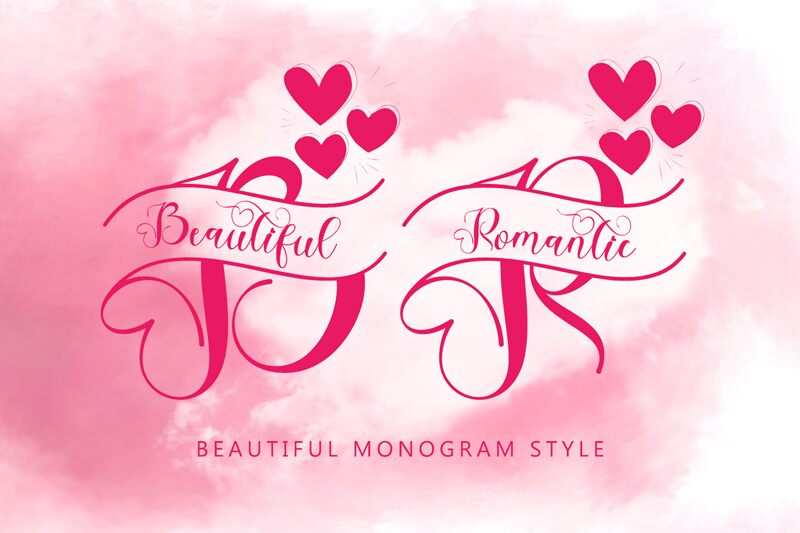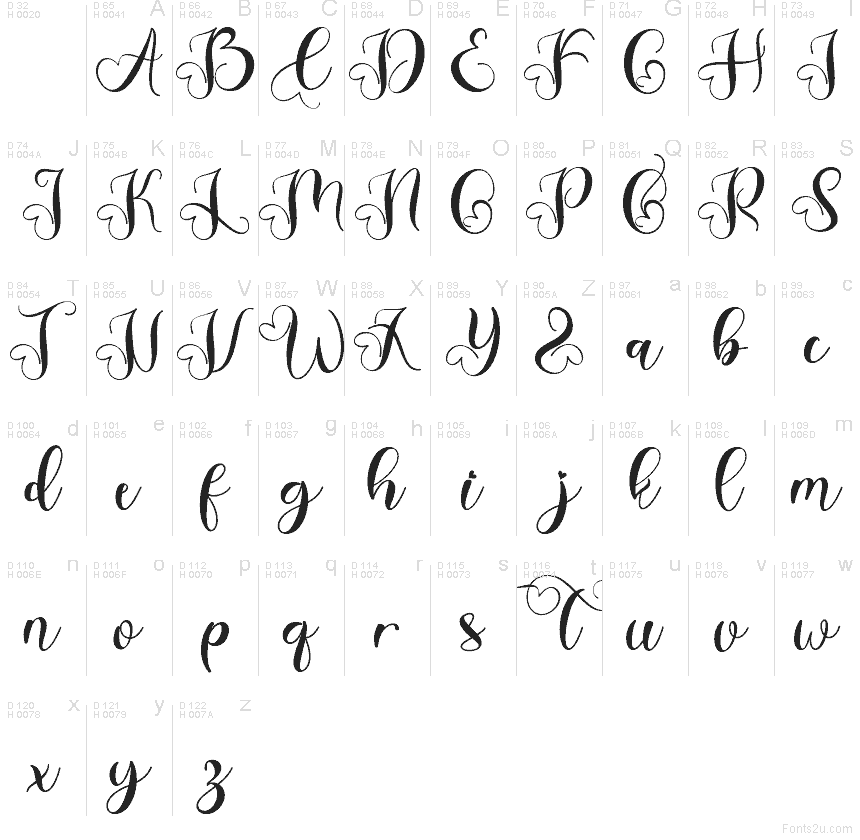
Beautiful Romantic Monogram Dem
Beautiful Romantic Monogram font by Yoga Letter is a free romantic script typeface. Flowing letterforms curl into elegant loops and heart-ready swashes, creating that handwritten, ink-on-paper feel you want for love notes and keepsakes. The long, sweeping strokes connect smoothly, so names, initials, and short phrases look luxe and intentional rather than cluttered.
Using Beautiful Romantic Monogram, you can create Valentine cards, wedding invitations, bridal shower signage, gift tags, boutique logos, and romantic quote prints that feel soft and personal. This free font shines on monograms and short headlines where its flourishes have room to breathe. Pair it with a clean, thin sans serif in small text to keep layouts balanced and easy to read.